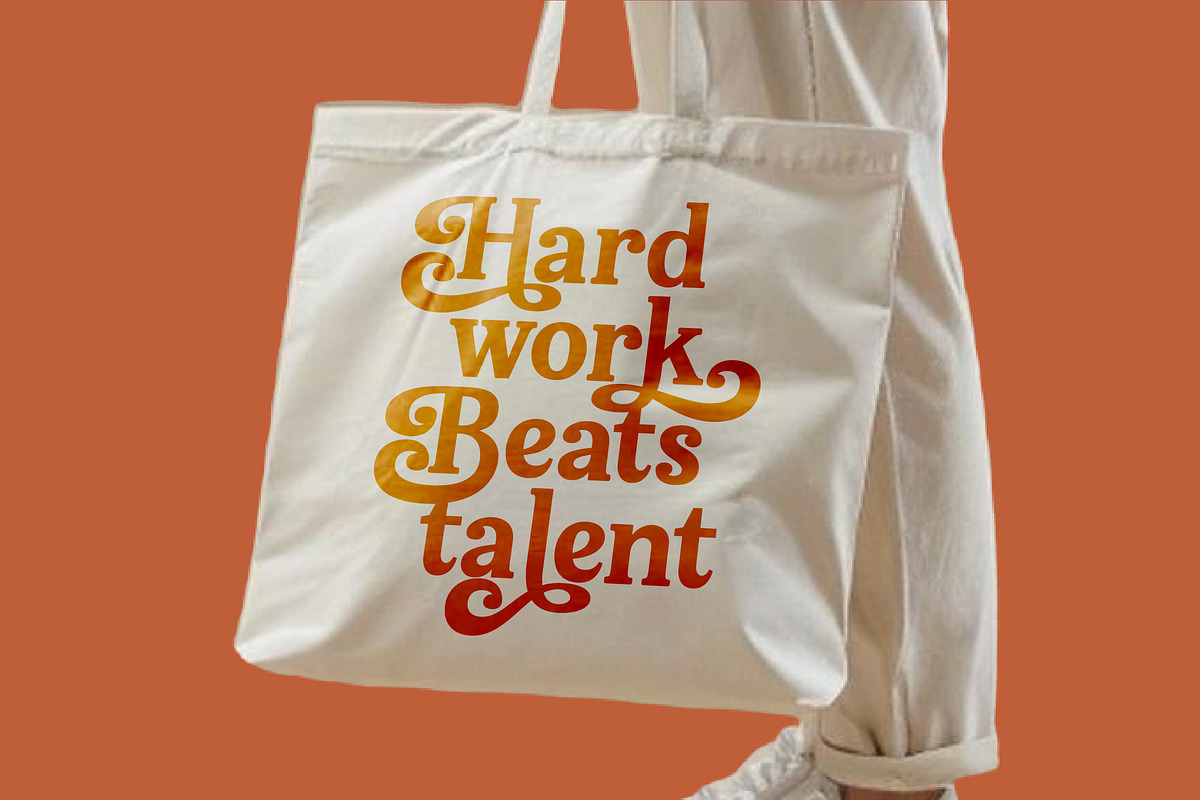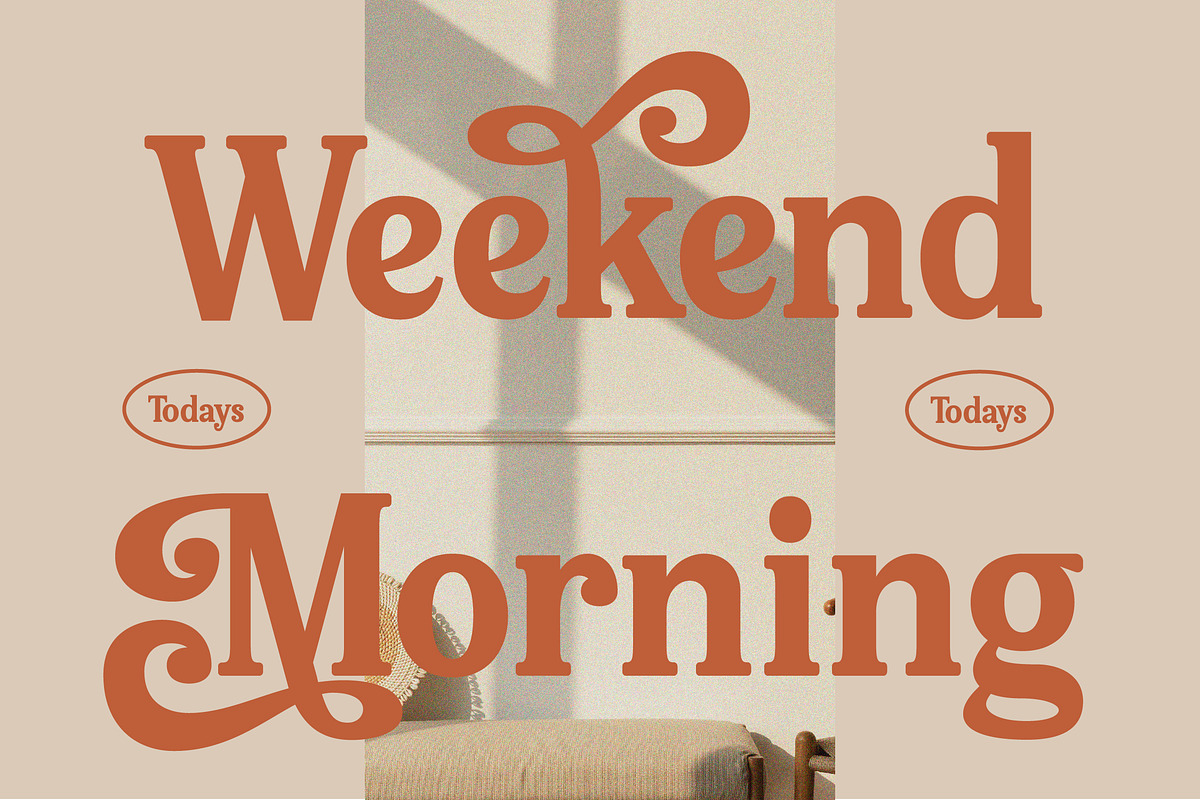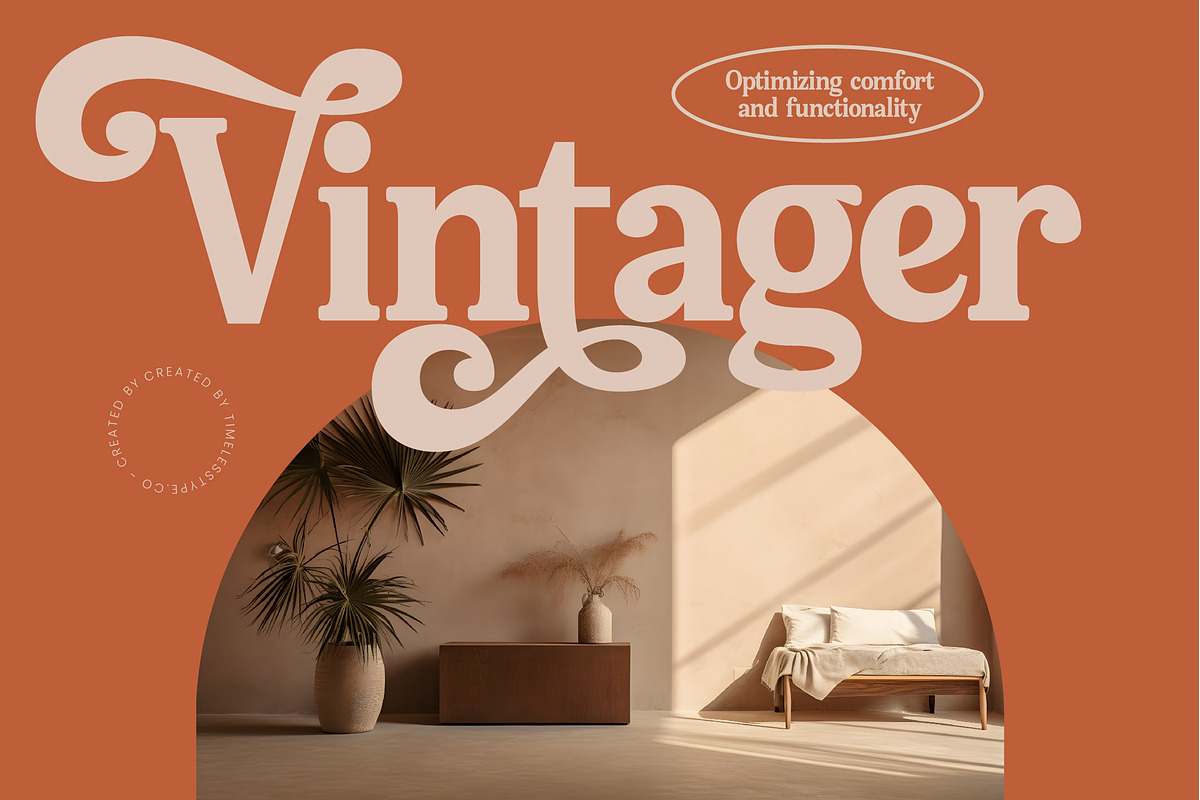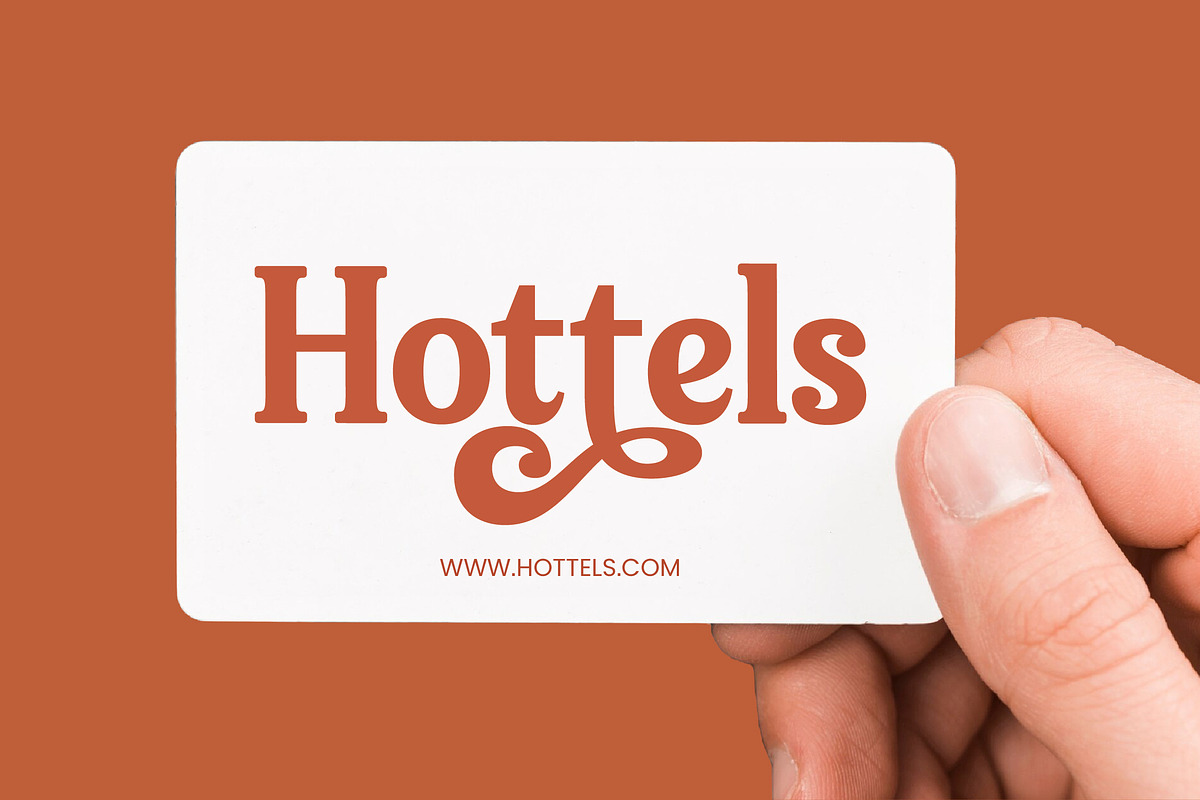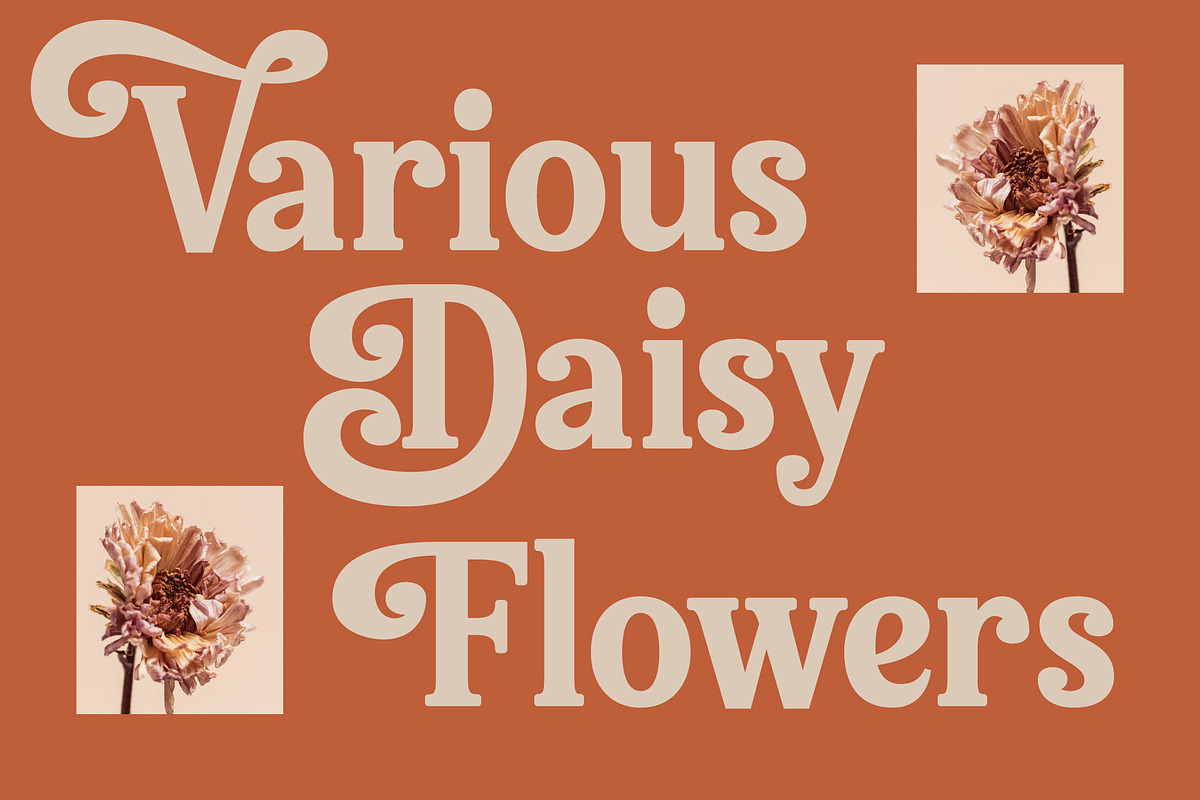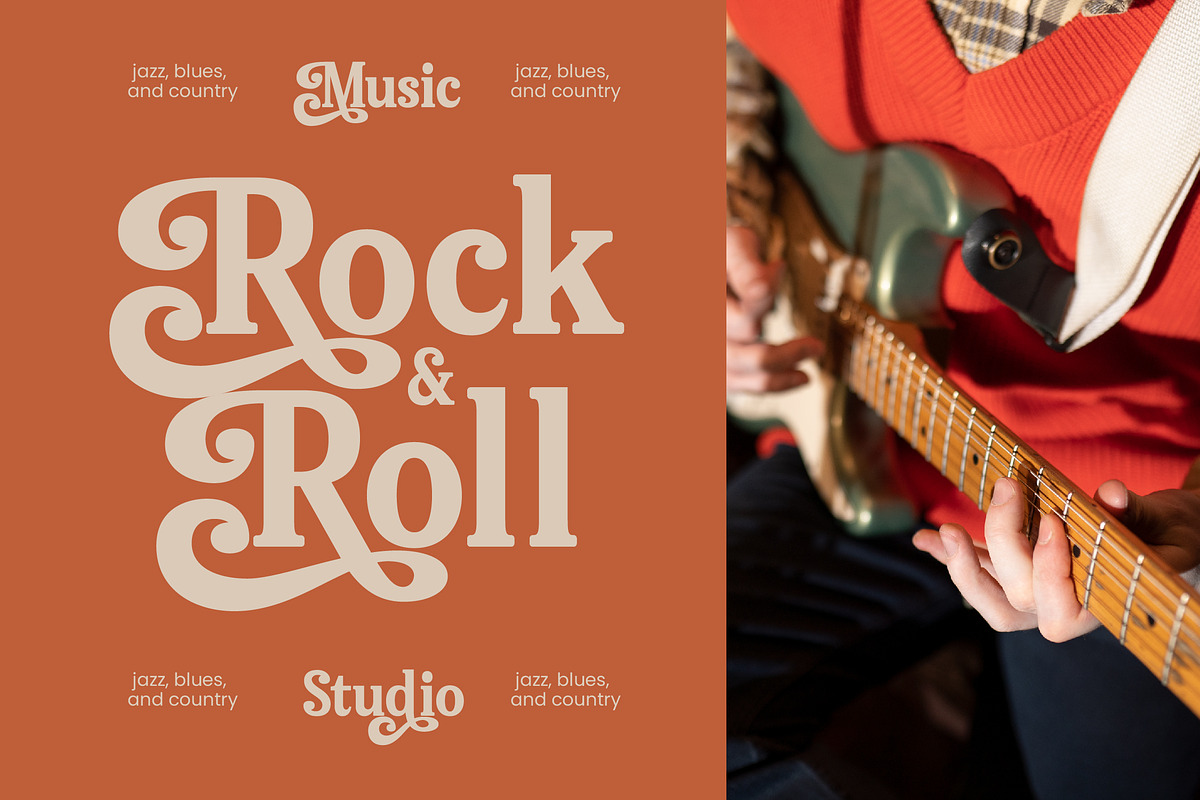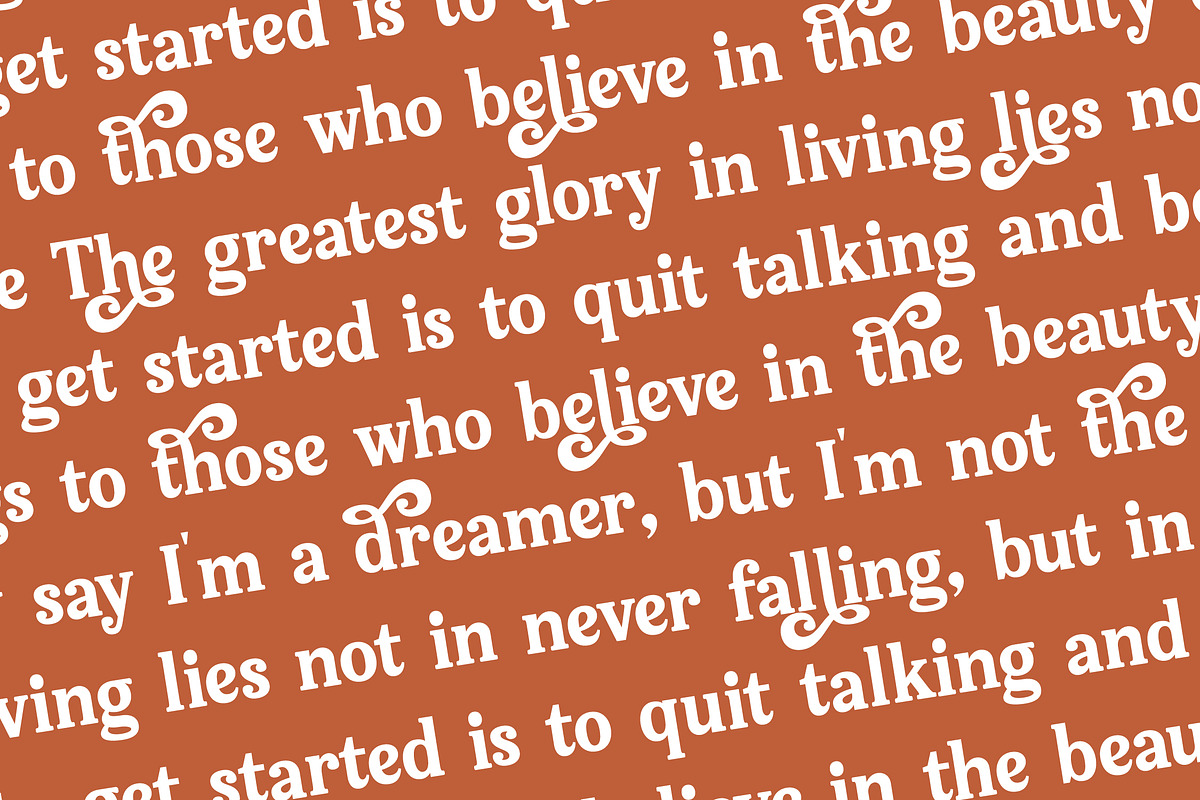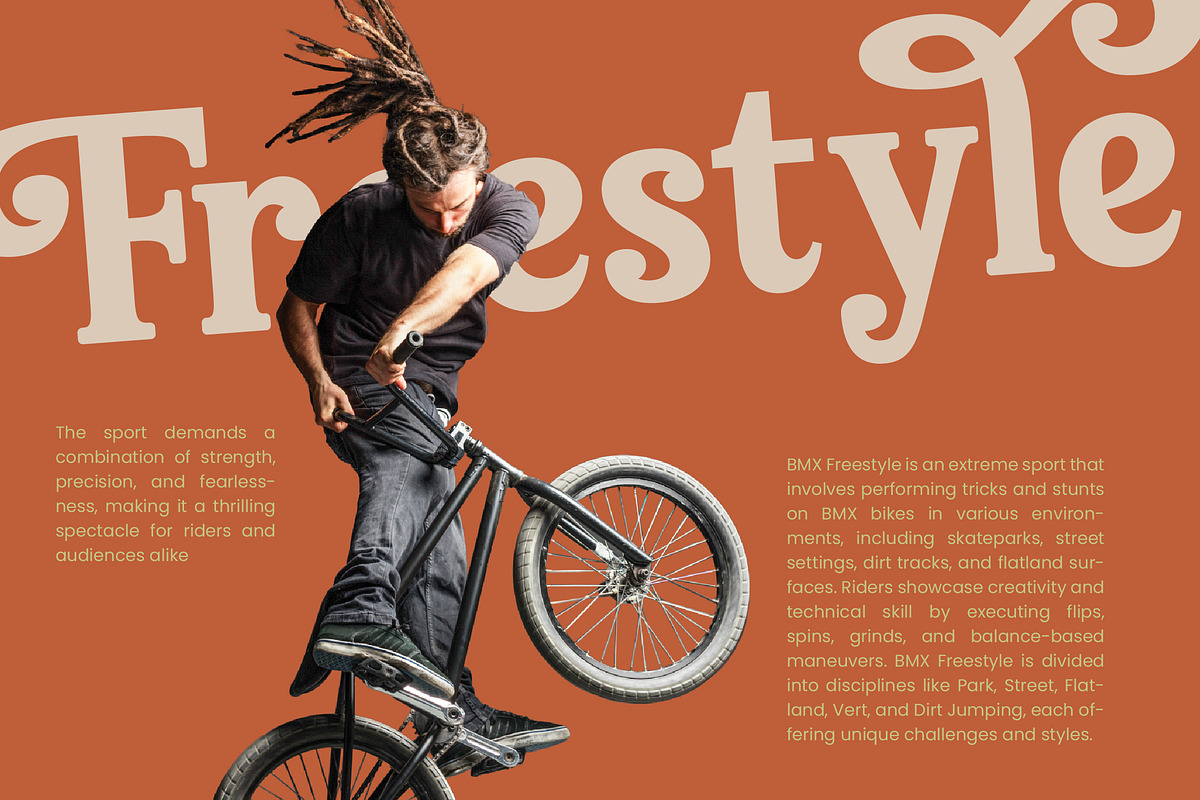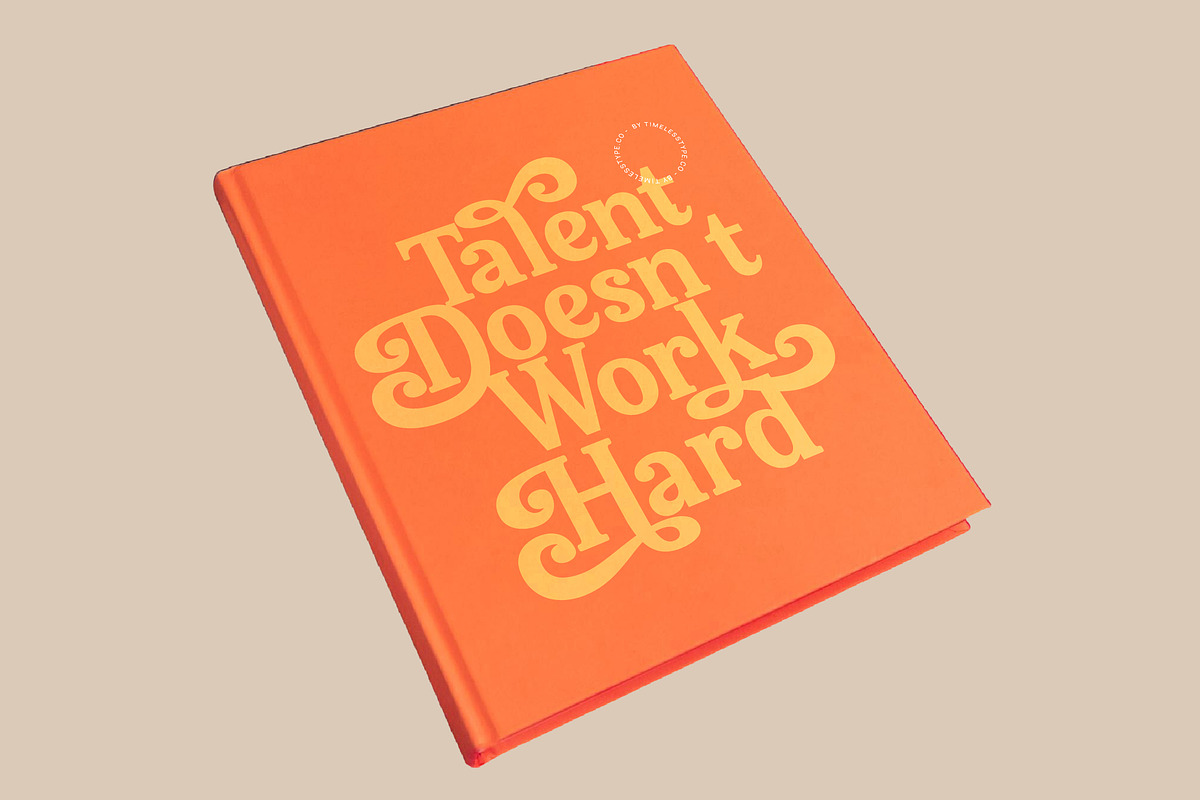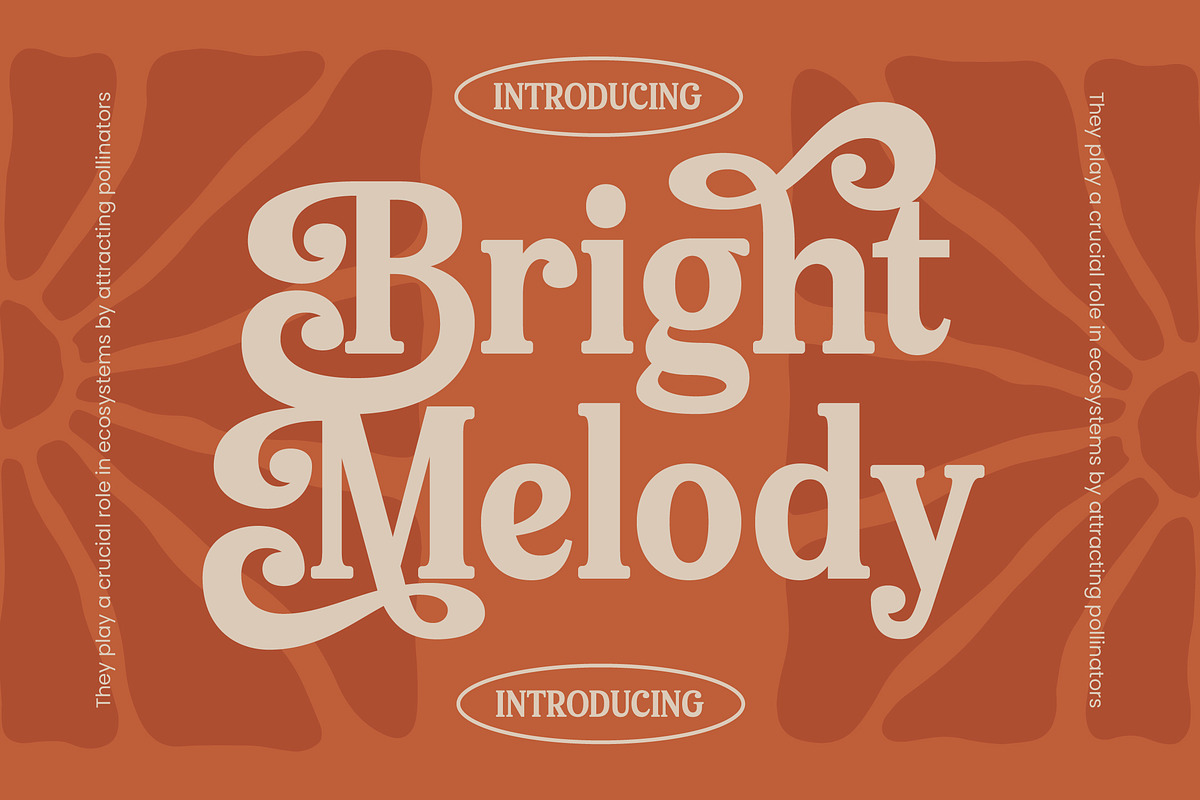
Bellati Nortils Groovy Serif Font
Introducing Bellati Nortils, a captivating blend of vintage charm and modern sophistication that instantly commands attention with its expressive curves. This font is designed to be the heartbeat of your next creative masterpiece, offering a unique visual rhythm that resonates with soulful energy.
Drawing inspiration from the vibrant spirit of the 1970s and the timeless elegance of classic editorial layouts, this typeface captures the essence of a bygone era reimagined for the contemporary eye. The fluid swashes and rhythmic strokes evoke a sense of nostalgic warmth while maintaining a crisp, polished edge suitable for today's high-end aesthetics.
With its striking modern serif display and undeniable luxury typography feel, this font delivers a powerful branding impact across any medium. The high-contrast serif design ensures that every character speaks with confidence, making it an essential editorial font for designers who refuse to settle for the ordinary.
As the modern serif trend continues to dominate the creative landscape, character-driven typography remains a top choice for brands seeking a distinct identity. Bellati Nortils aligns perfectly with these editorial display fonts trends, providing a versatile tool for creating memorable visual narratives in a crowded market.
This font excels in high-visibility applications such as logo design and comprehensive branding systems where personality is paramount. From high-fashion editorial spreads and premium packaging to romantic wedding stationery and trendsetting fashion lookbooks, it adapts seamlessly to diverse creative visions.
Beyond its aesthetic appeal, the typeface is packed with functional excellence including 50 alternates and 5 ligatures to customize your text. Complete with elegant swashes and full multilingual support for international characters, it offers total creative freedom for global projects.
- Ligature 5 Alternate 50